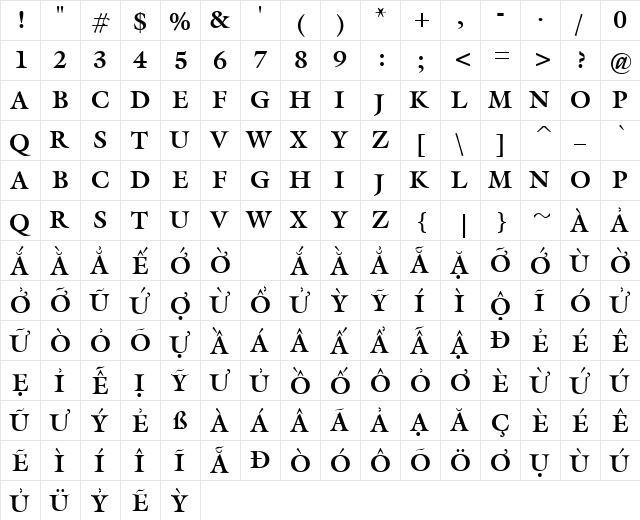
VPS Vung Tau Hoa Bold
Design Context for VPS Vung Tau Hoa Typeface
VPS Vung Tau Hoa offers clean, dependable letterforms without strong stylistic allegiance, making it a practical choice for designers who need flexibility. The heavy weight commands attention and anchors typographic hierarchies.